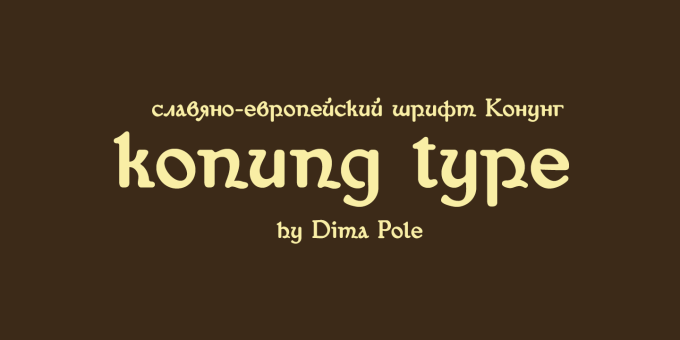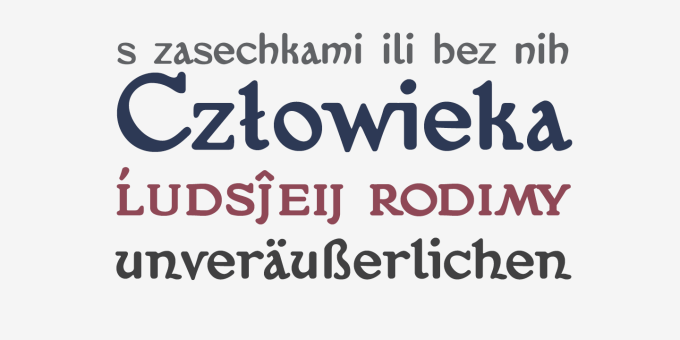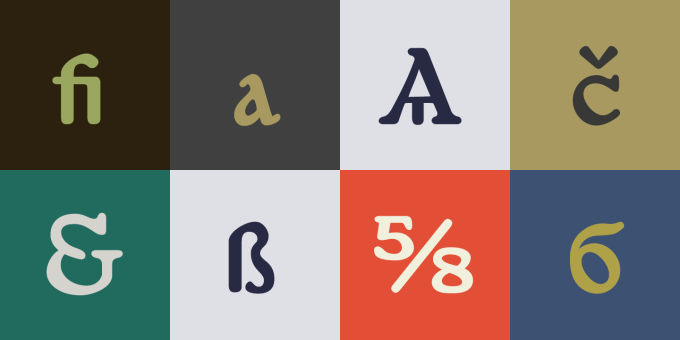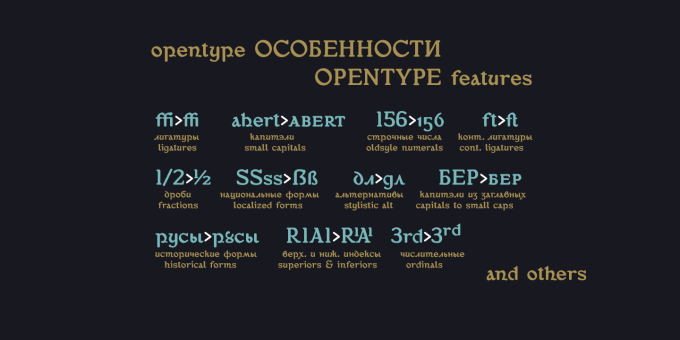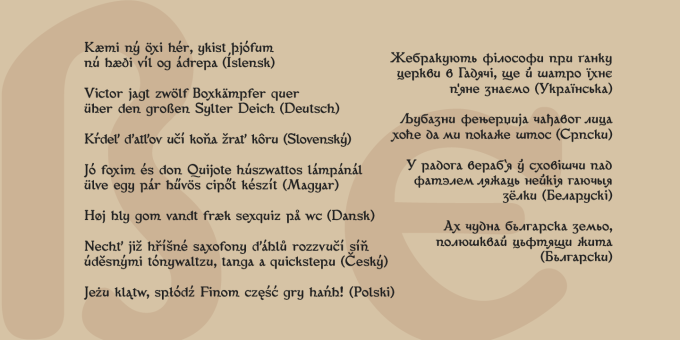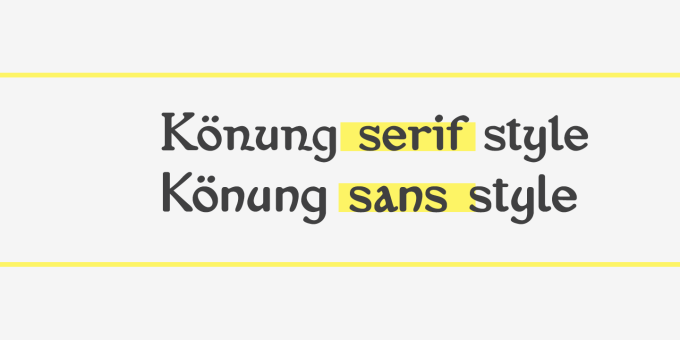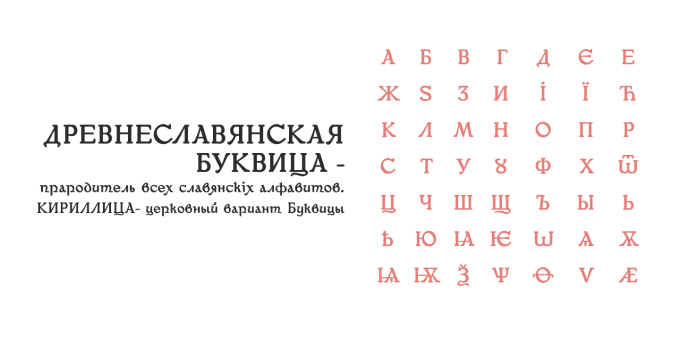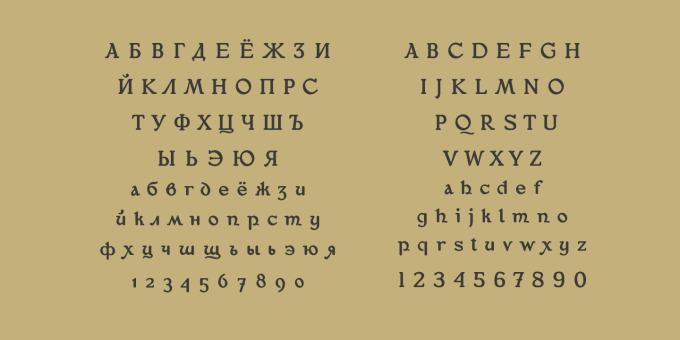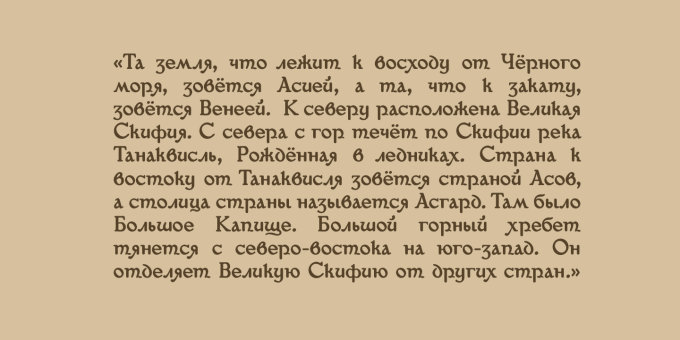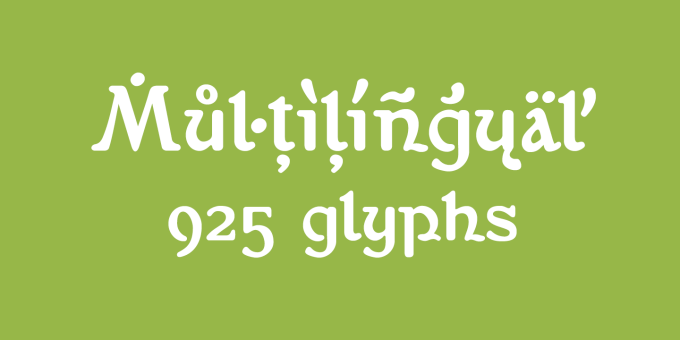
Konung
Konung (konge, koning, ~king) – appointed guardian who is trusted to transfer the Wisdom (Kon) to a new land.
Konung type is a friendly font, which is an amalgam of several writing culture. It offers re-unite originally of kindred peoples and their Outlook on life.
Konung type is soft and elegant, it includes 925 glyphs, Slavic and European alphabets, over 20 Opentype features, small caps, serif and sans-serif styles and so on.